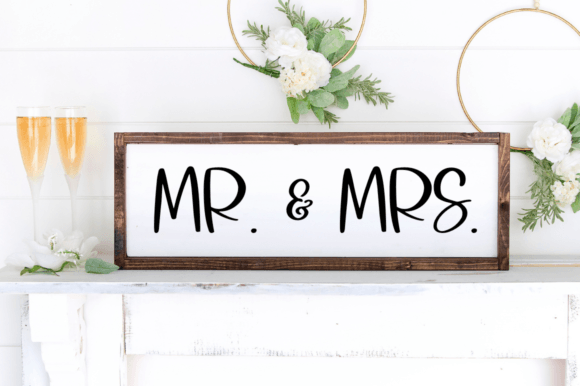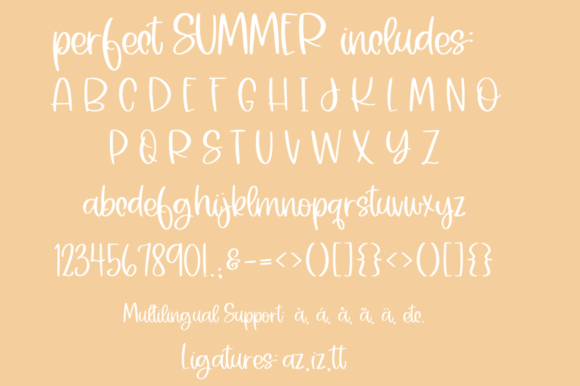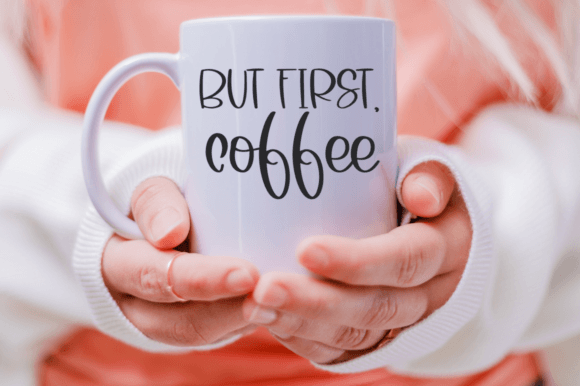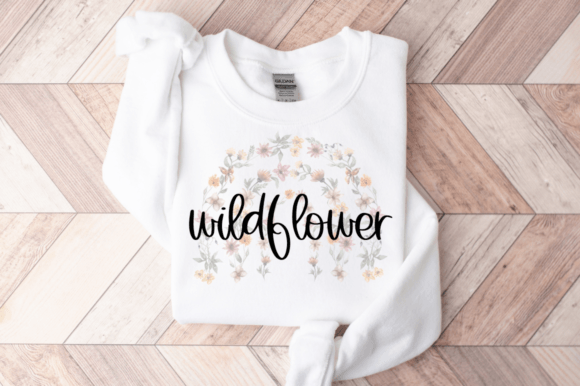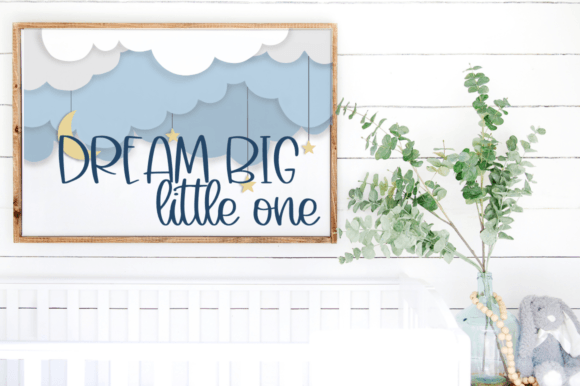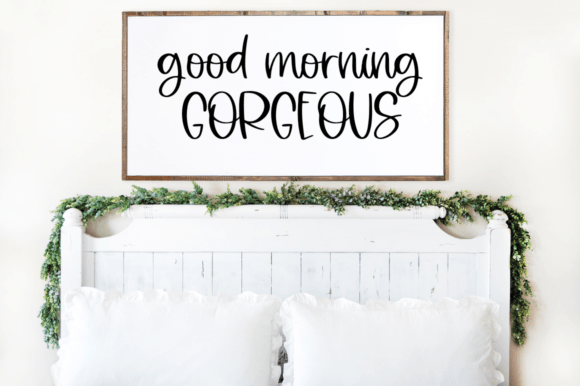
Introduction to Perfect Summer Font Font
Fonts play a crucial role in design, and the Perfect Summer Font font is a typeface that brings both character and versatility to any project. Whether you’re working on a branding project, a website, or a print design, the Perfect Summer Font font offers a unique style that can elevate your work.
Looking for a cute and whimsical script font to add a touch of playfulness to your designs.
Look no further than Perfect Summer Font This cursive font is perfect for creating designs that are both charming and eye-catching, from SVG designs to cute greeting cards.
Key Features of Perfect Summer Font Font
Why Choose Perfect Summer Font Font?
The Perfect Summer Font font is more than just a typeface – it’s a design tool that helps you communicate your message with style and clarity. Its unique character set and versatile design make it suitable for a wide range of applications, from elegant invitations to bold headlines.
With its carefully crafted letterforms and balanced proportions, the Perfect Summer Font font ensures readability and visual appeal across all mediums.
What makes Perfect Summer Font font special?
The Perfect Summer Font font stands out with its unique design, exceptional readability, and versatility across various design applications.